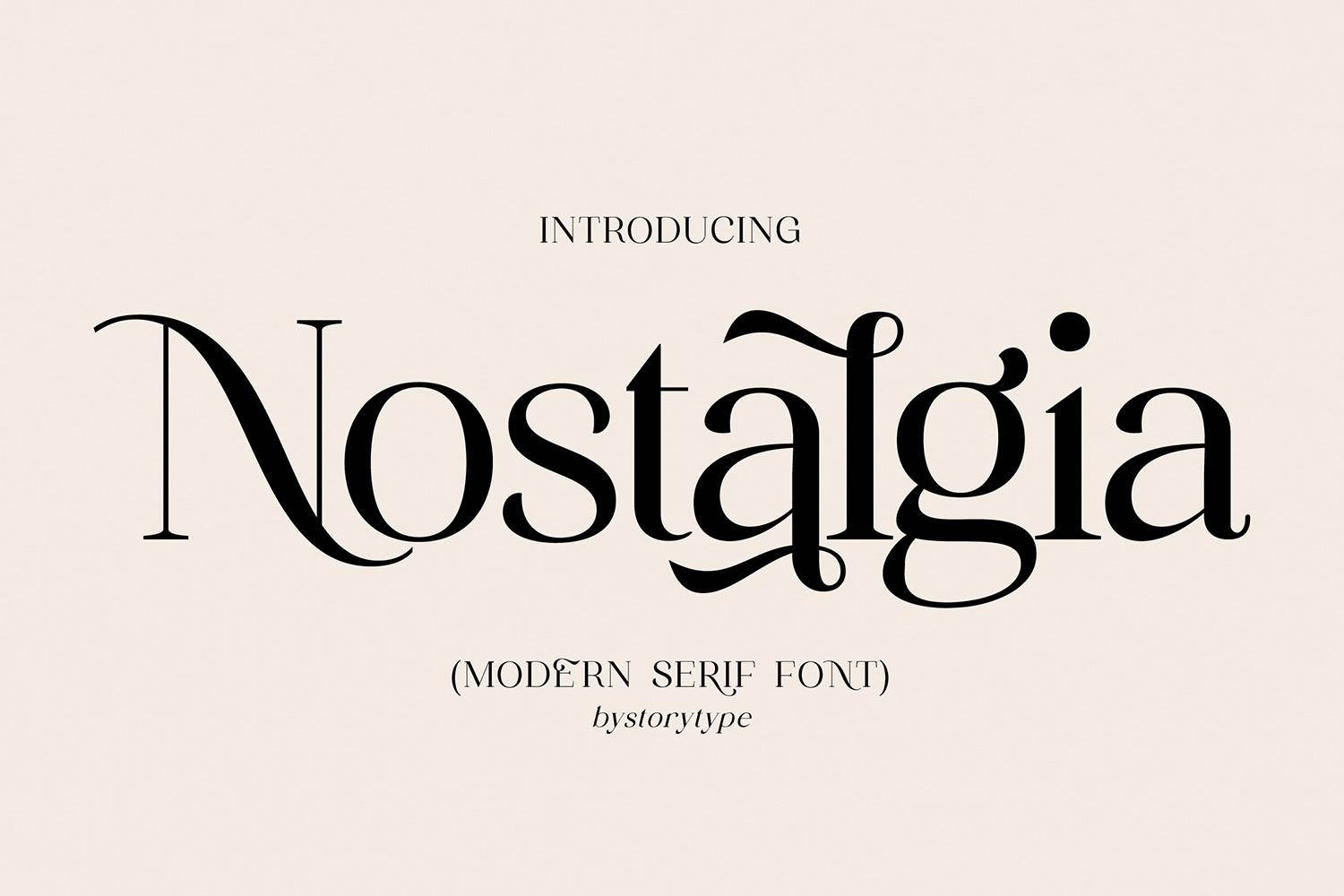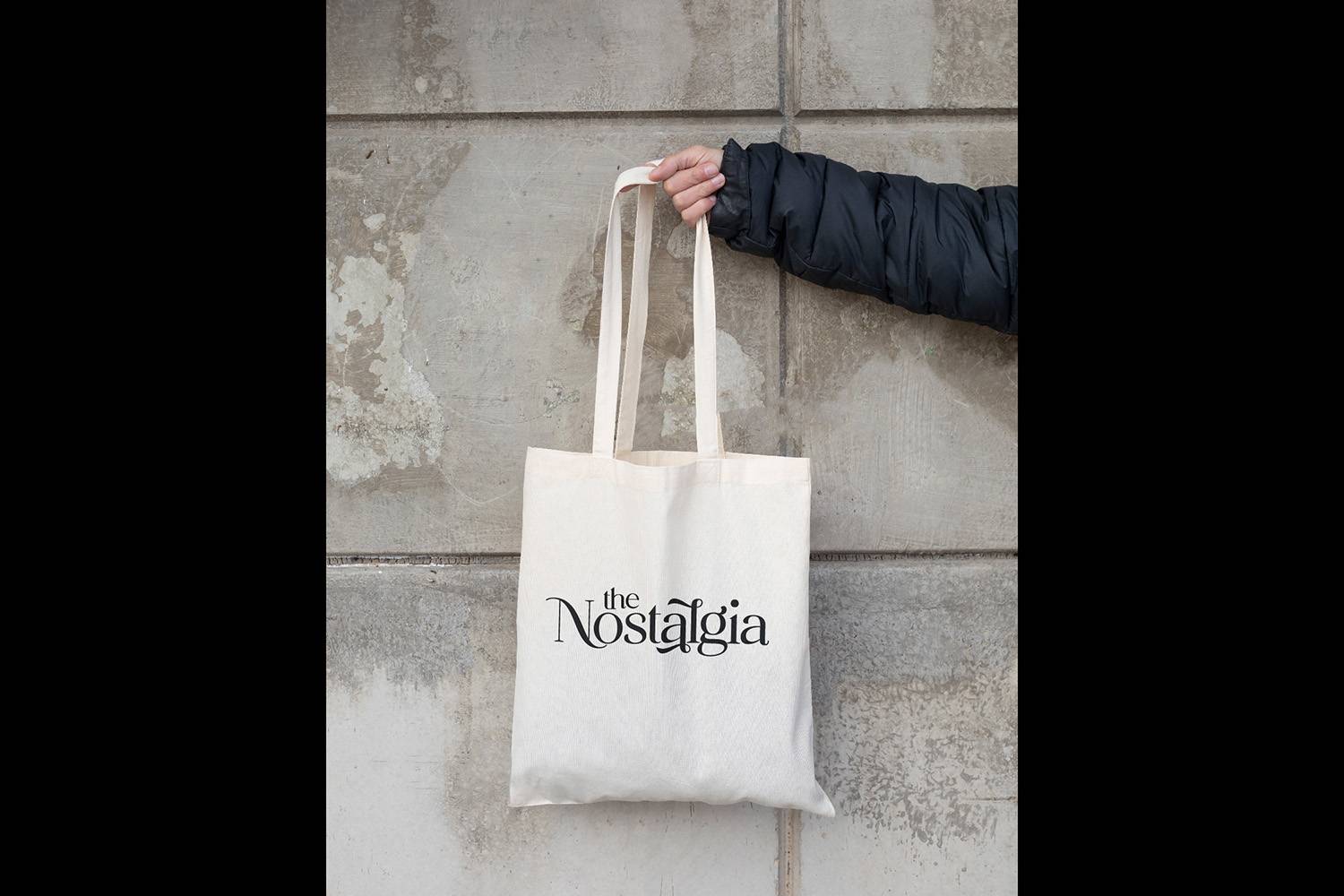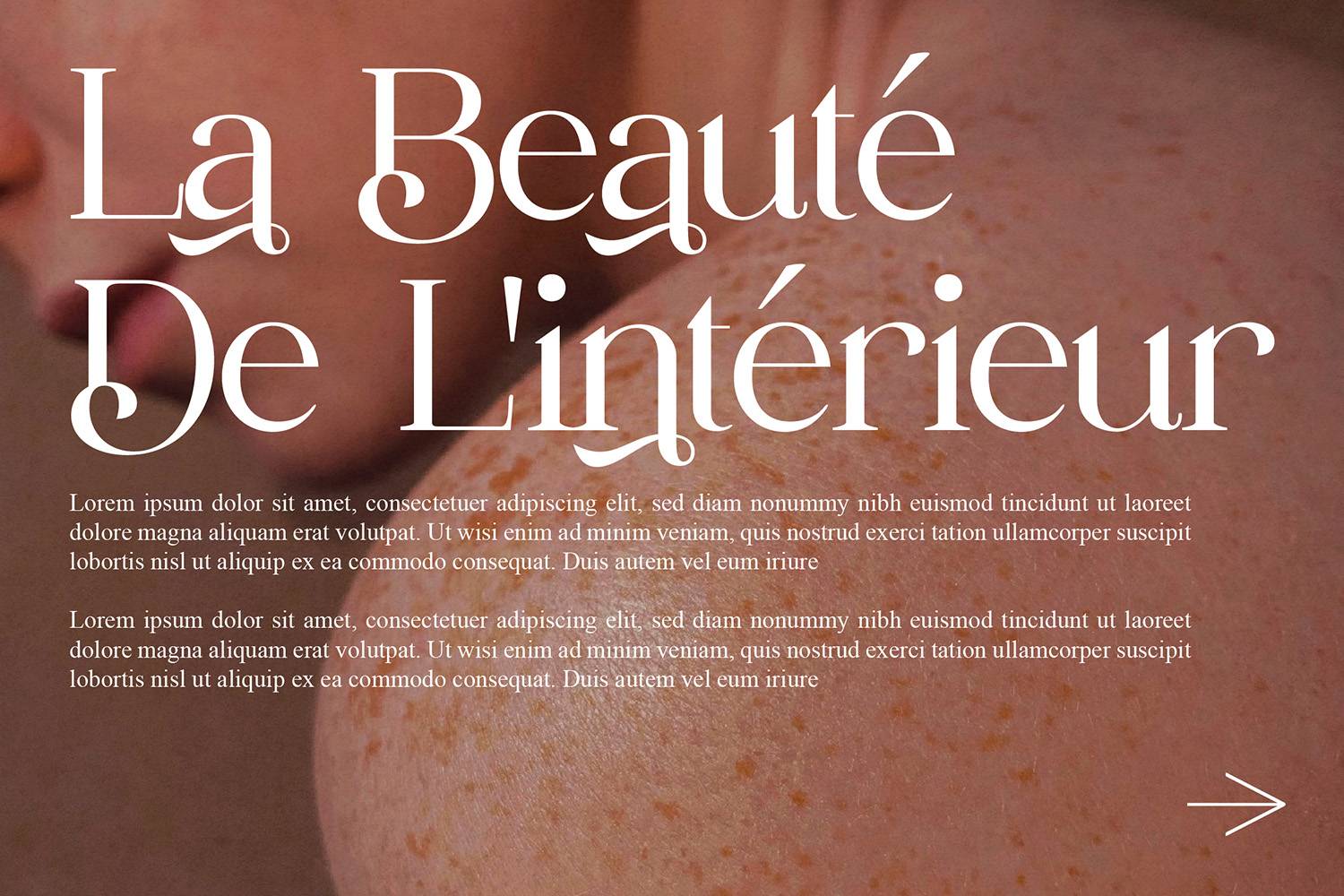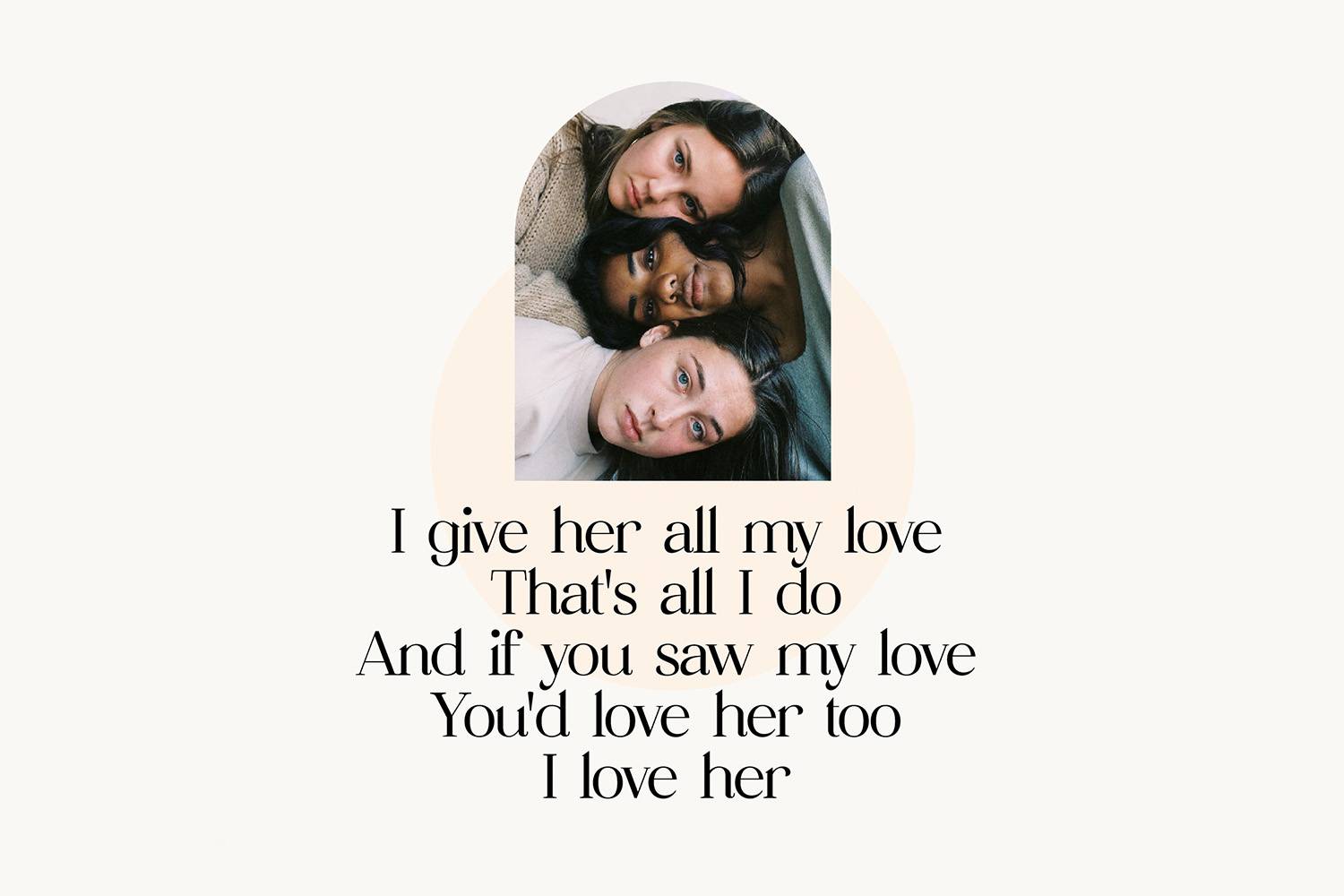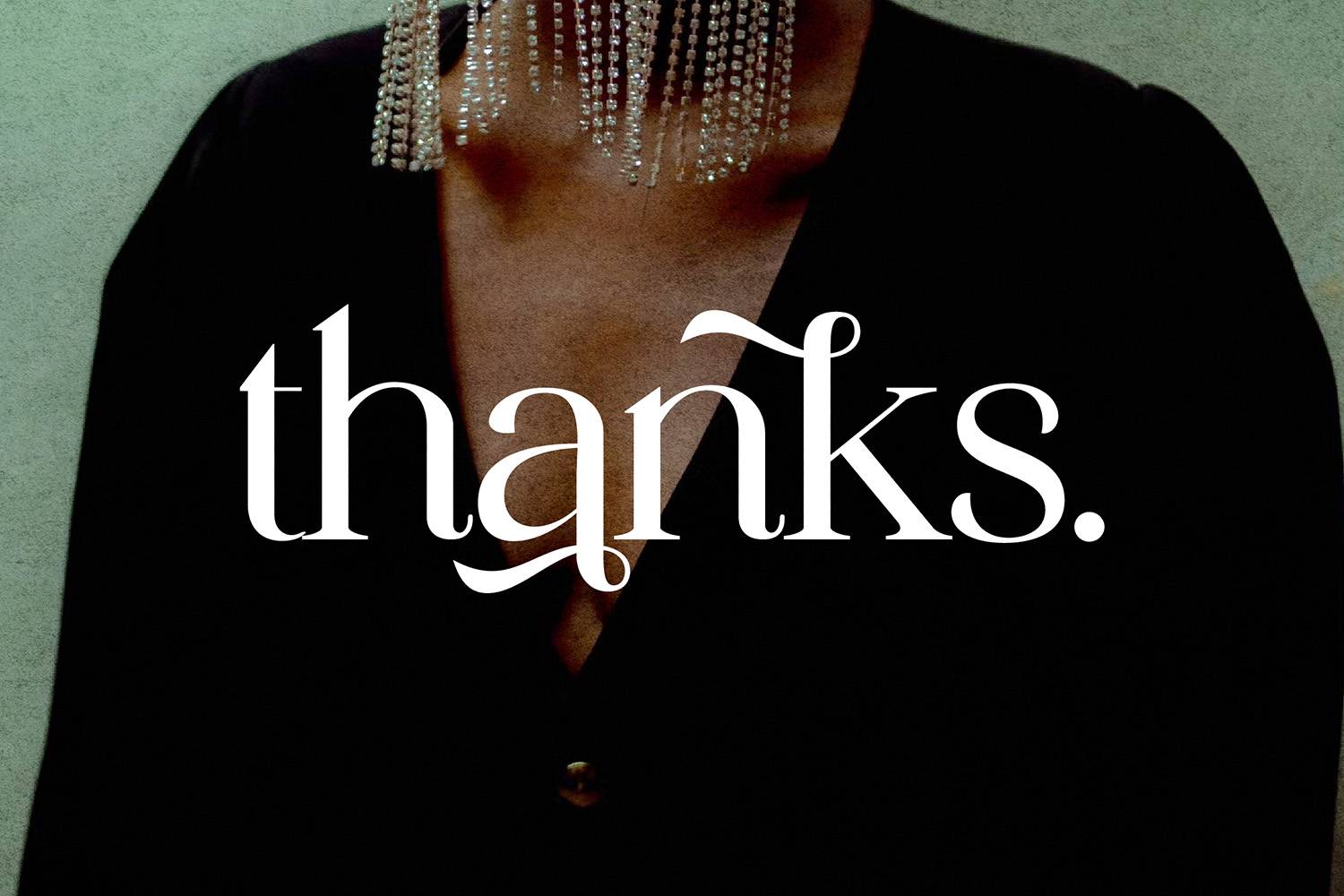
Nostalgia is an elegant serif font with a classic, refined feel, characterized by high contrast between thick and thin strokes and delicate, bracketed serifs. Its slender, slightly condensed letterforms and graceful curves evoke a sense of timeless sophistication, making it ideal for luxury branding, editorial design, and upscale packaging. This font works beautifully in headlines and refined print projects where a touch of vintage charm and elegance is desired.
Nostalgia Font
About Nostalgia Font